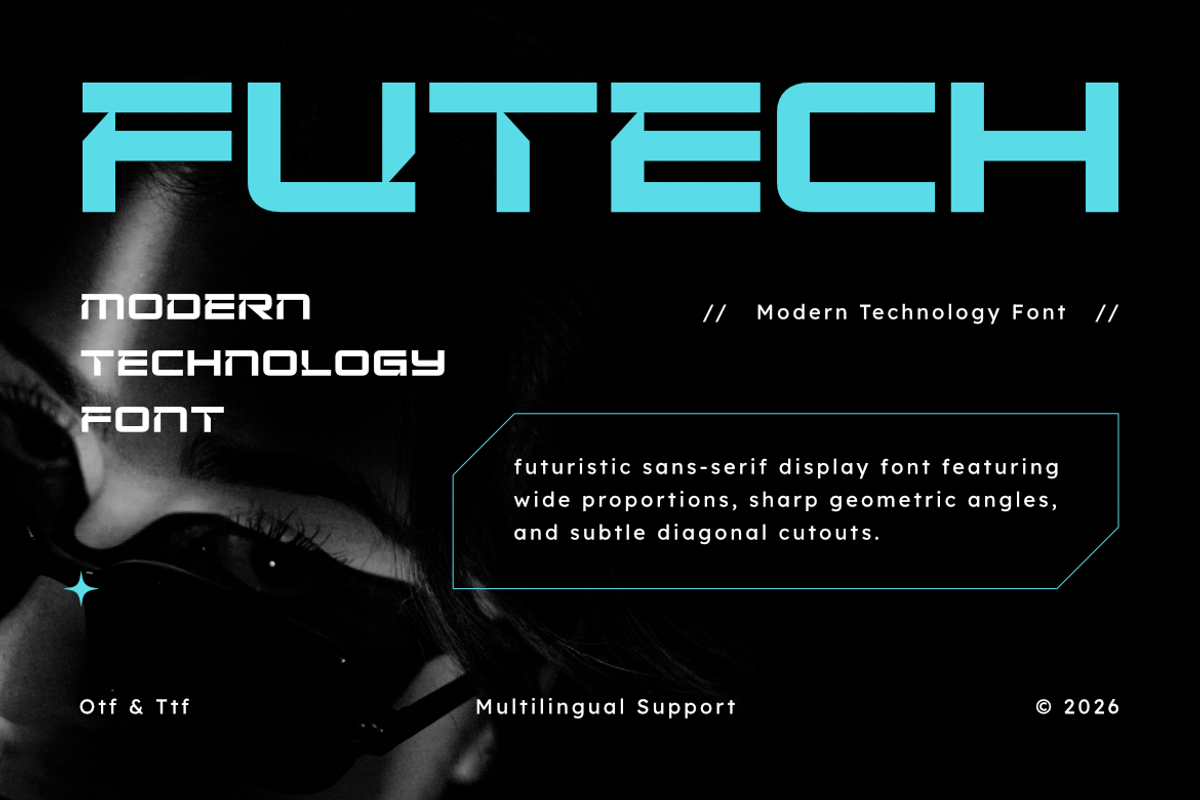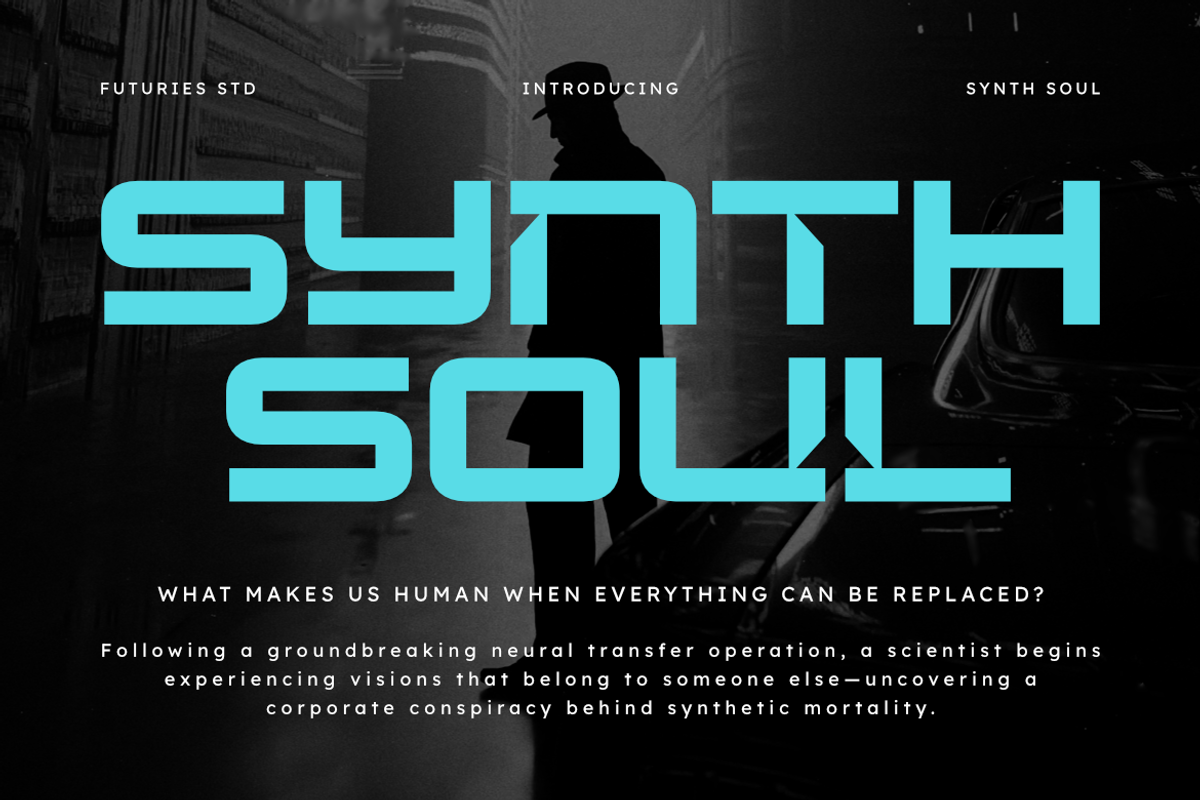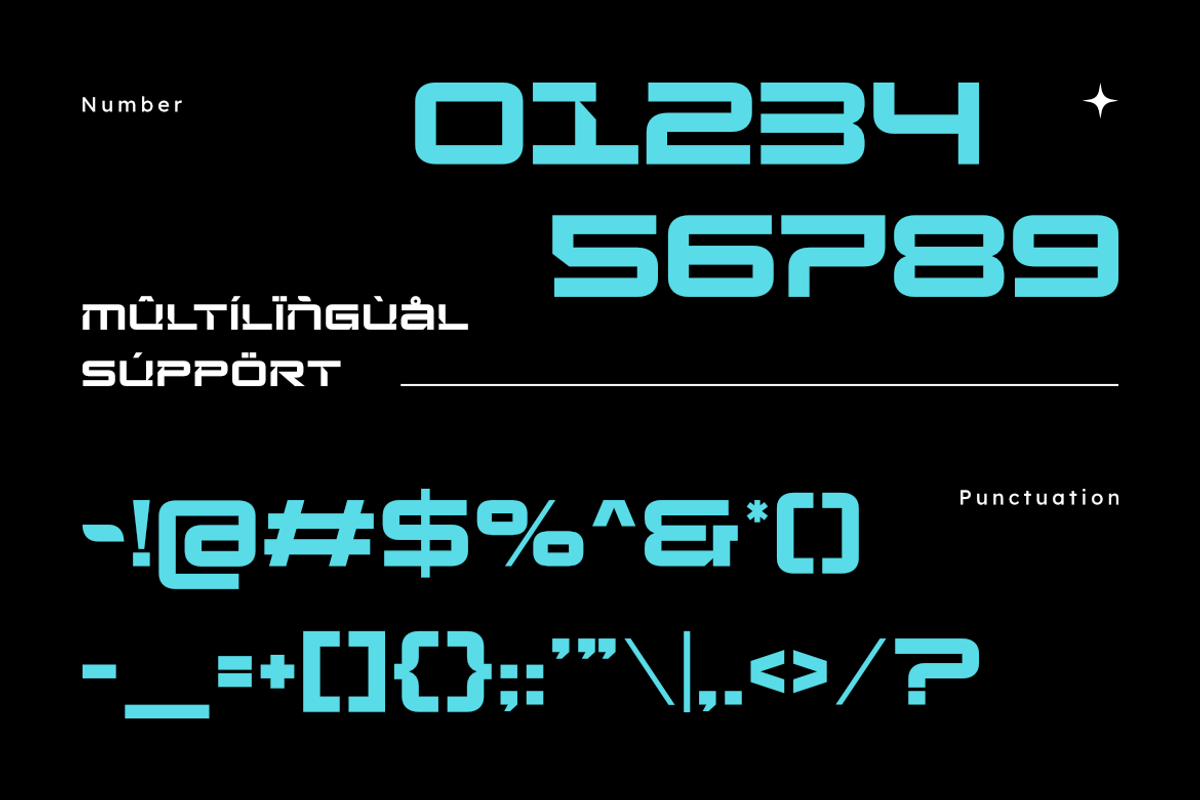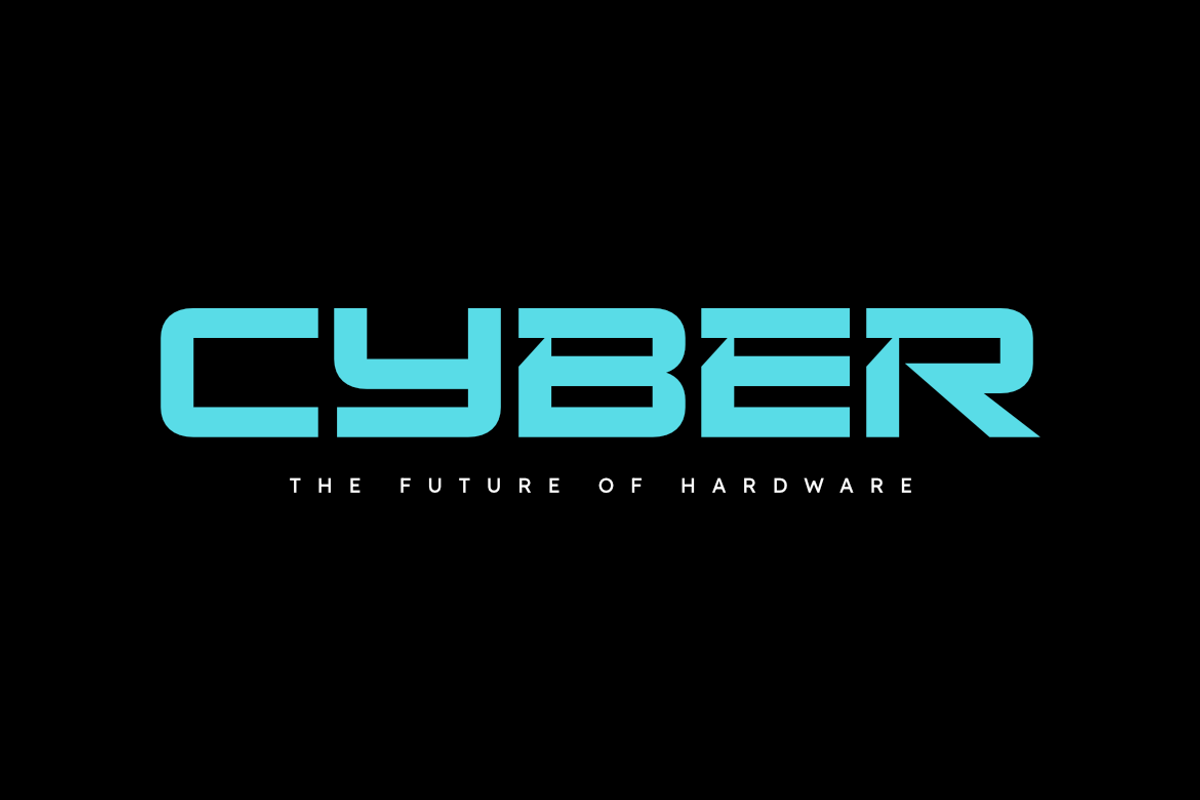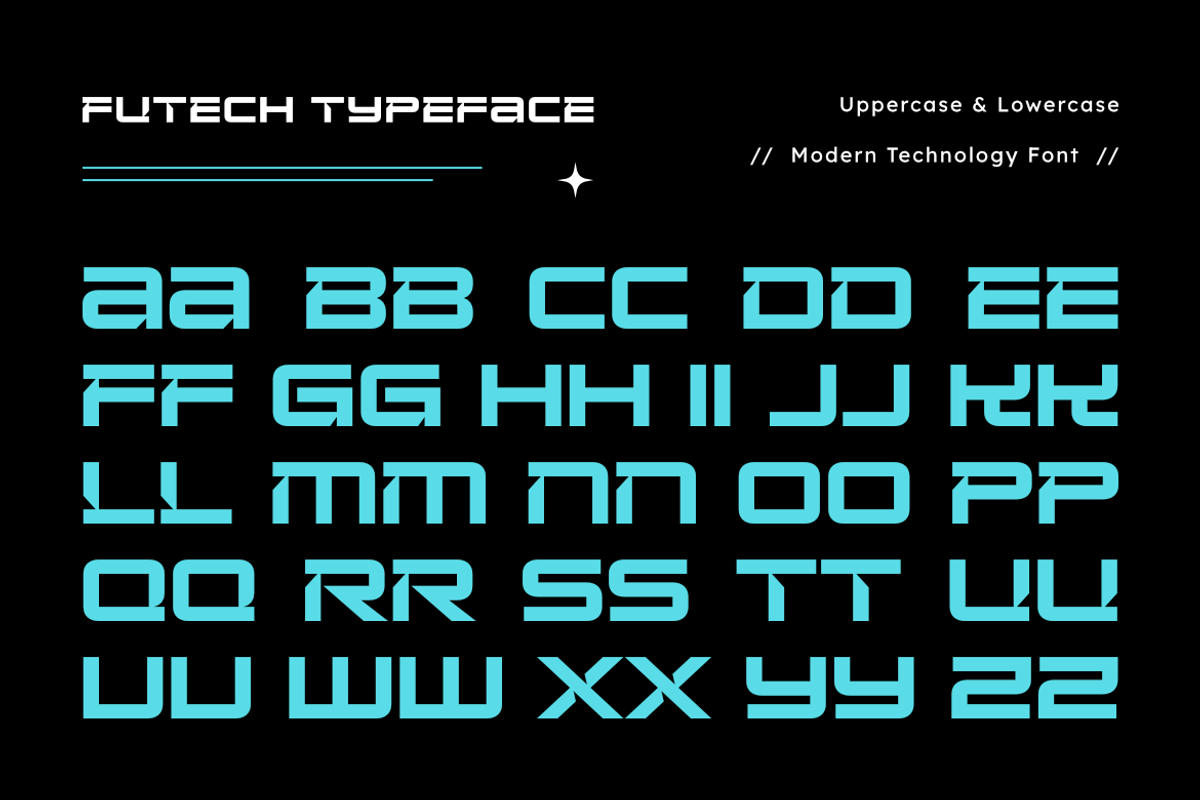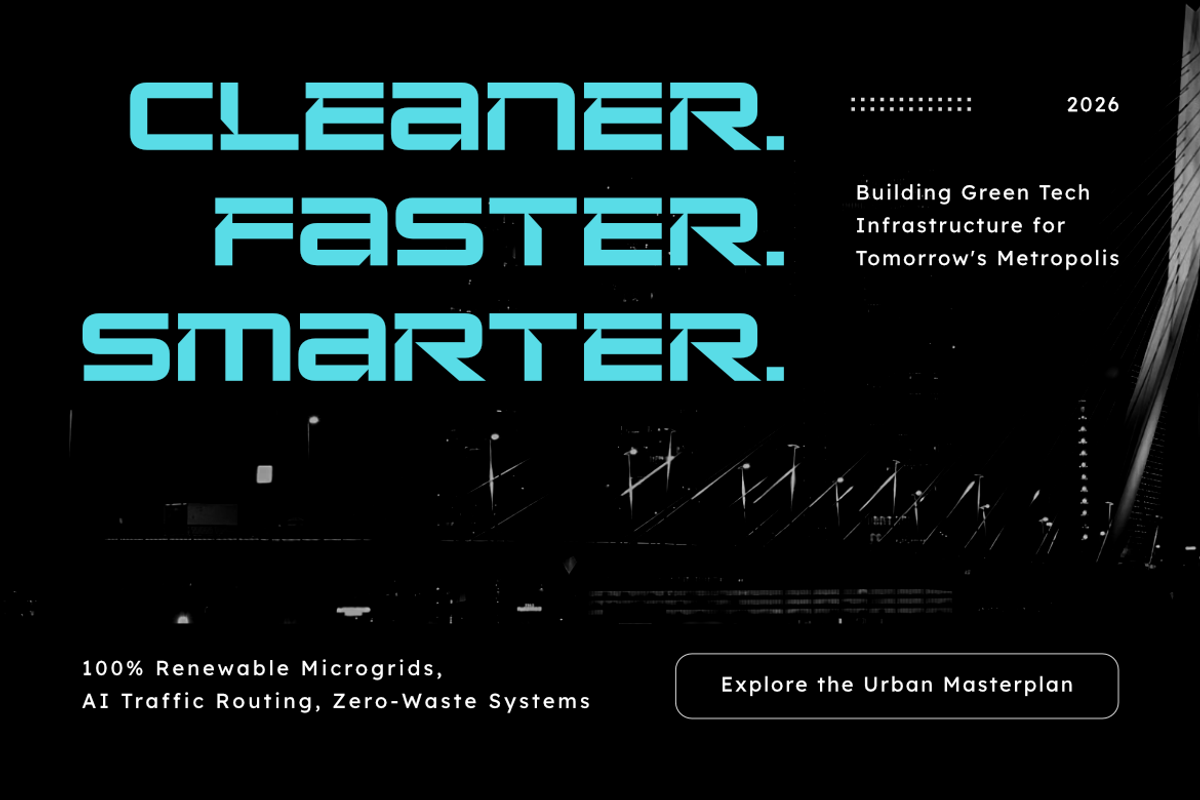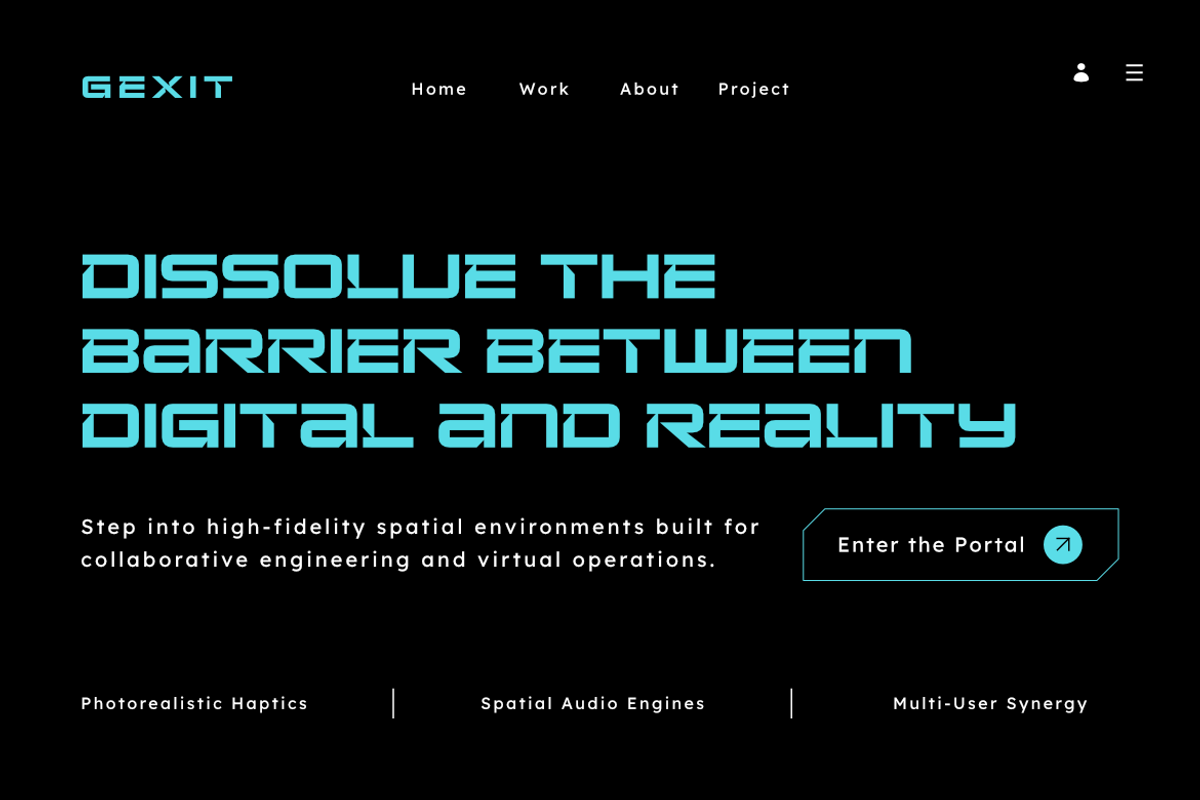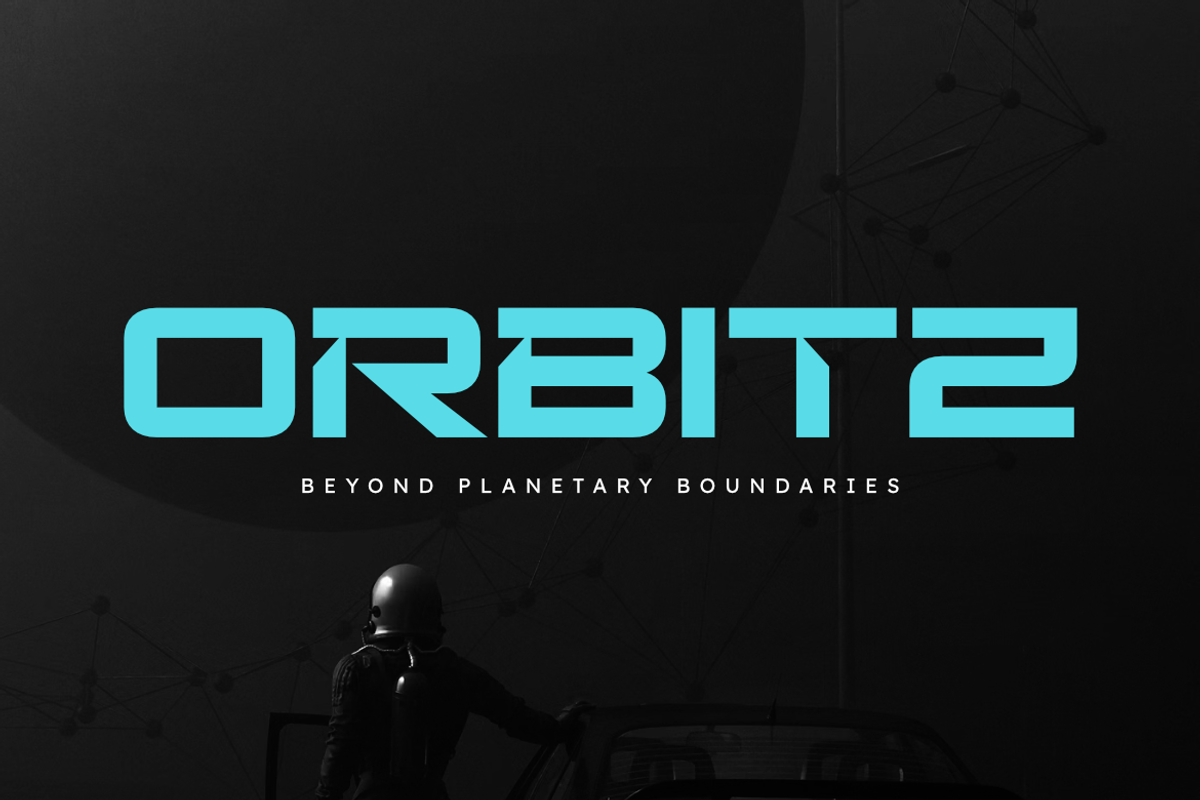
Futech - Modern Technology Font
Futech is a modern technology display font featuring wide proportions, sharp geometric angles, and distinctive diagonal cutouts. Its bold futuristic construction creates a strong digital aesthetic while maintaining a clean and structured visual presence.
Designed for forward-thinking creative projects, Futech combines heavy geometric forms with unique internal details to create typography that feels technological, experimental, and contemporary. Its wide structure makes it especially effective for impactful headlines, brand names, logos, and large display compositions.
Futech is a strong choice for technology startups, gaming identities, digital products, futuristic branding, software interfaces, cyber-inspired graphics, and modern advertising campaigns. Whether used for a logo, headline, or visual identity, Futech gives your typography a distinctive technological character.
Uppercase Letters
Wide Letterform Proportions
Sharp Geometric Angles
Diagonal Cutout Details
Futuristic Display Style
Technology Branding
Tech Startup Identity
Futuristic Logos
Software Branding
Gaming Identity
Digital Products
UI/UX Design
Cyberpunk Graphics
Sci-Fi Titles
App Branding
Digital Advertising
Modern Headlines